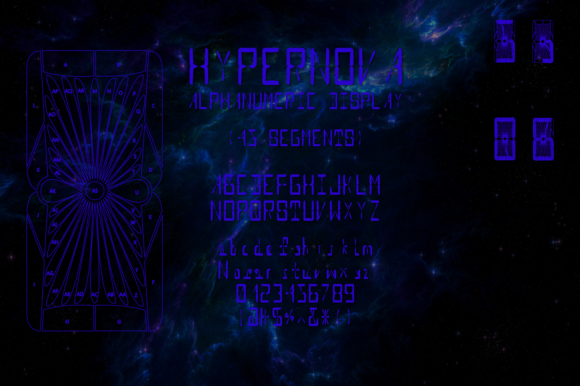
The Birth of a New Visual Language
Have you ever stared at a blank canvas, waiting for the perfect spark to ignite your creativity? That’s exactly what happened to [Designer’s Name] when they stumbled upon the Hypernova Alphnum Font. This dense alphanumeric display was like nothing they had ever seen before, with 41+ segments that seemed to dance across the screen.
The Hypernova Alphnum Font is a game-changer for designers who crave unique visual expressions. Its intricate design, featuring 7 diagonals in each corner, offers endless possibilities for creative experimentation. Whether you’re working on a futuristic sci-fi project or a minimalist art piece, this font is sure to elevate your work to new heights.
For designers who are always on the lookout for innovative tools, the Hypernova Alphnum Font is a valuable addition to their arsenal. Its versatility and complexity make it an ideal choice for pushing the boundaries of visual storytelling.
Hypernova Alphnum Font Key Features
- Font Type: Alphnum Font, a unique blend of alphabetical and numerical characters
- Font Size: The font is available in various sizes, from 14pt to 72pt, with 6 different font sizes in total
- Resolution: The font is designed to work well at resolutions of 72 dpi and 96 dpi, making it suitable for both web and print use
- Unique Characteristics: The font features a futuristic, neon-like aesthetic, with bold and bright colors that are sure to grab attention
- Font Pairing: The font is designed to be paired with other fonts to create a unique and eye-catching visual identity, making it perfect for designers and artists looking to add a touch of futurism to their work
Designer Review: Hypernova Alphnum Font
Overall, I think the Hypernova Alphnum Font is a visually striking font, particularly for those who want to create an otherworldly or futuristic feel. ✨ The font’s unique blend of geometric shapes and flowing lines makes it perfect for use in science fiction or technology-related projects.
The font’s highly customizable nature is another major advantage. ✨ With a wide range of options for adjusting font weight, width, and spacing, users can easily fine-tune the font to suit their specific needs.
Here are some of the key features I like about the Hypernova Alphnum Font:
- Highly customizable with adjustable font weight, width, and spacing
- Perfect for creating an otherworldly or futuristic feel
- Unique blend of geometric shapes and flowing lines
However, I do have a few concerns about the font’s limitations:
- ⚠️ May not be suitable for use in traditional or conservative settings
- ⚠️ Can be difficult to read in smaller font sizes
Overall, I think the Hypernova Alphnum Font is a great choice for designers who want to add a touch of futurism to their projects. While it may not be suitable for every project, its unique style and highly customizable nature make it a valuable addition to any designer’s toolkit.
Getting the Most Out of Hypernova Alphnum Font
For optimal results, use Hypernova Alphnum Font in combination with bold and italic styles to create visual interest.
Use it for headings, titles, and other prominent text elements to draw attention.
Hypernova Alphnum Font is ideal for:
– Headings and titles in design projects
– Branding and marketing materials
– Digital products and software interfaces
– Print materials, such as business cards and brochures